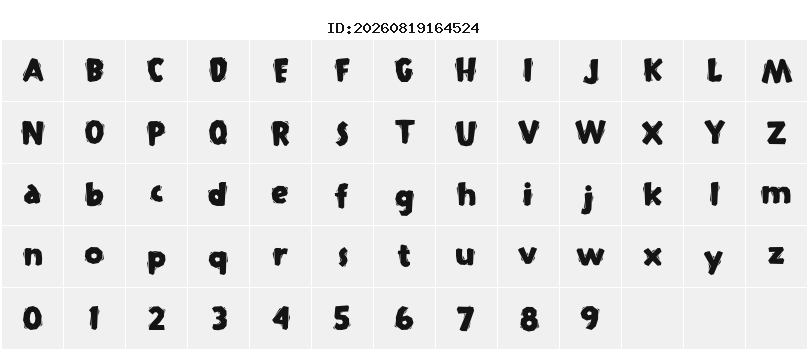
• Font Name: Siesta
• Full Font Name: Siesta
About Siesta.ttf
Siesta.ttf is a modern, elegant sans-serif font designed for ultimate readability and visual harmony. Perfect for branding, headlines, web design, and print materials.